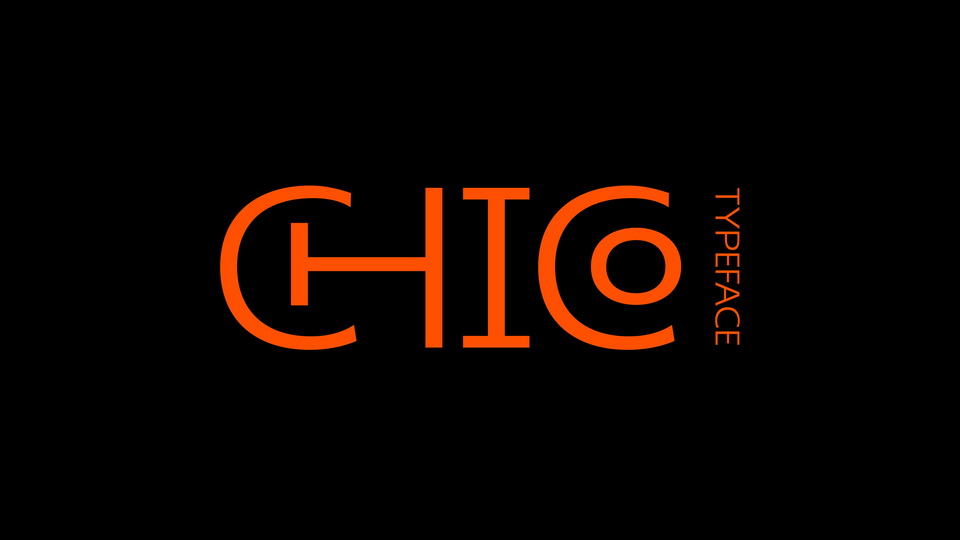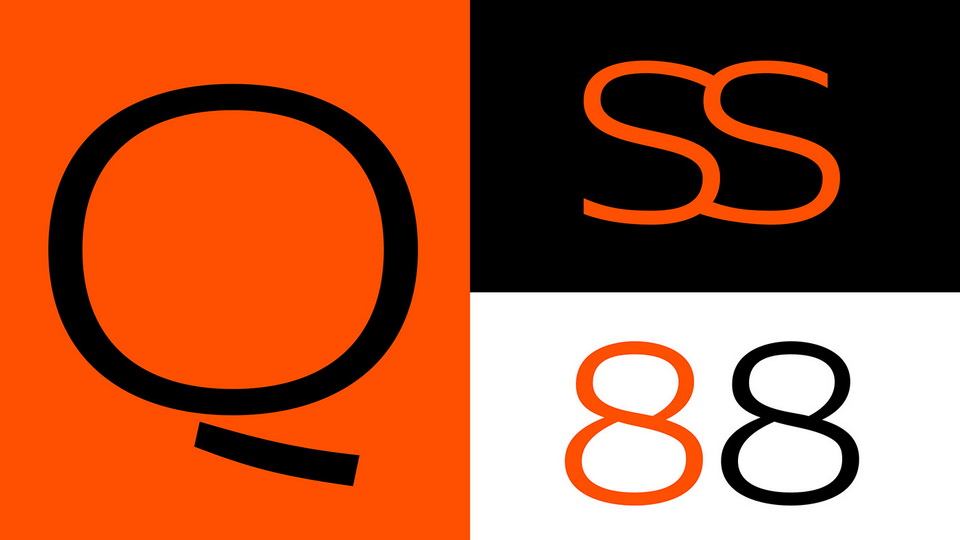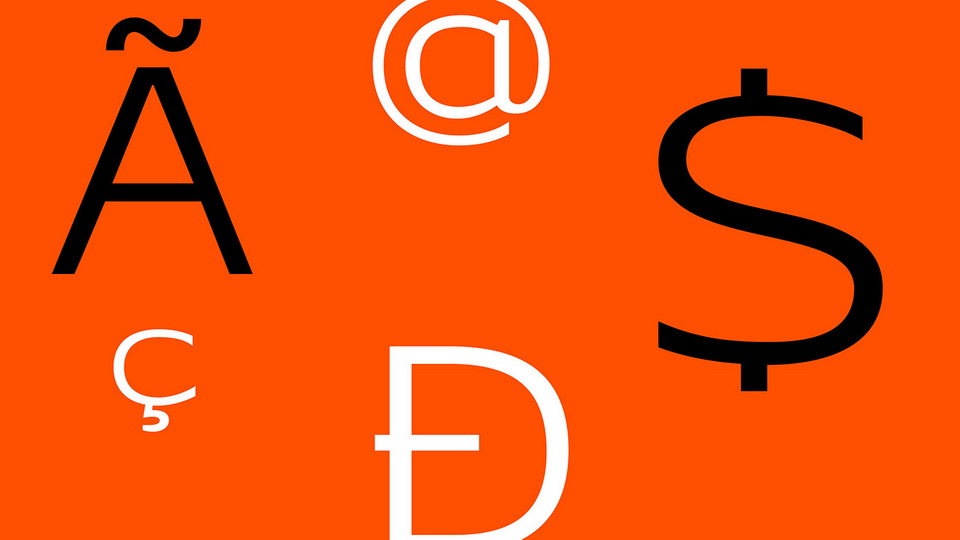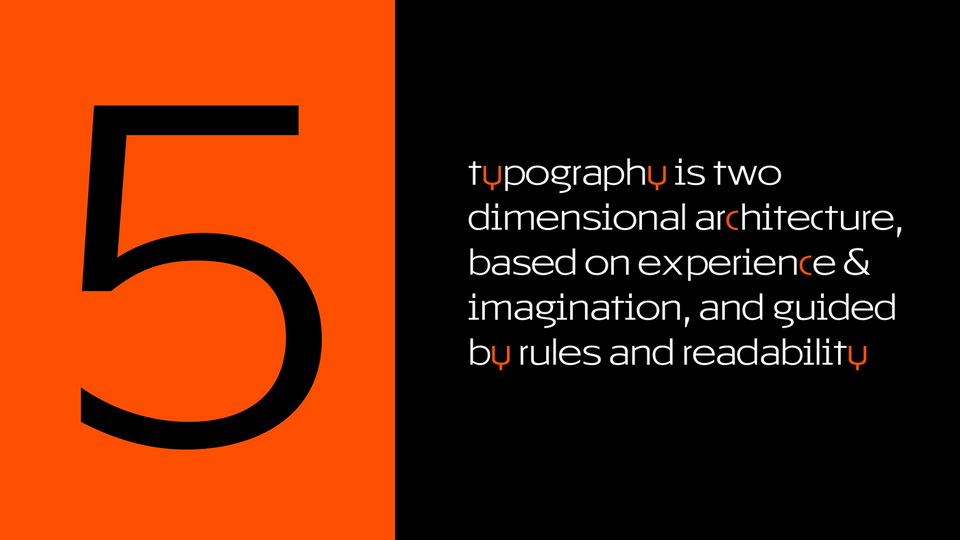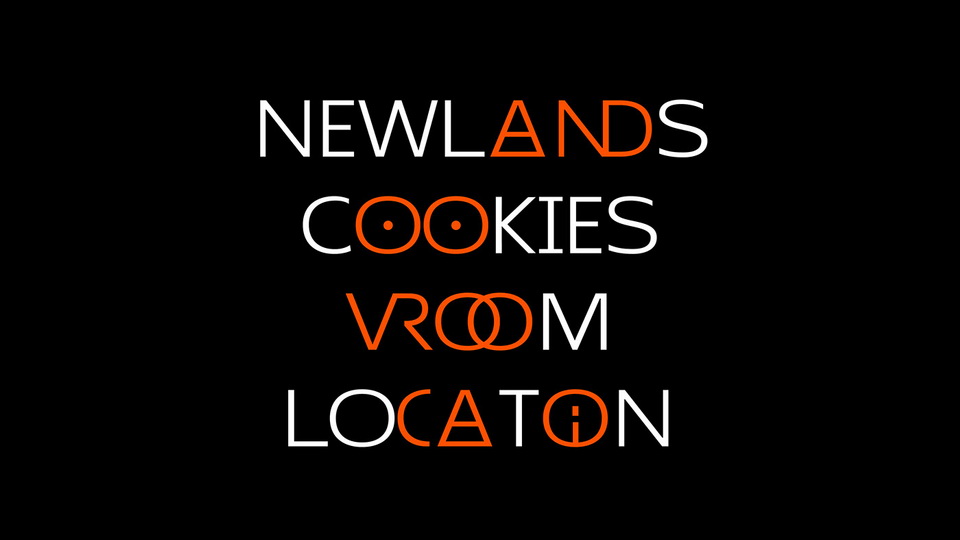
Chico Font
Chico is a contemporary sans serif typeface designed specifically for display purposes. It’s wide structure, ligatures and alternate characters makes it a perfect font for branding projects, logos, posters and headlines.